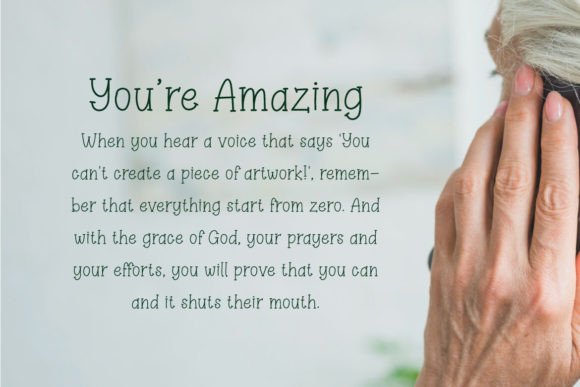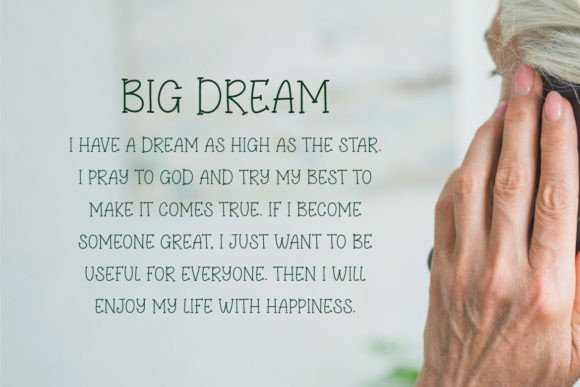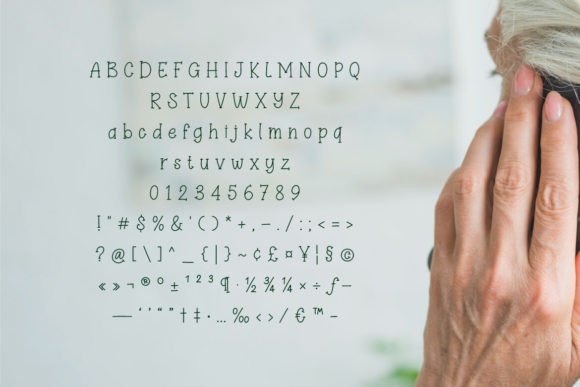
Introduction to Restu Embah Font
Have you ever stared at a blank canvas, trying to bring a creative idea to life, only to be limited by the perfect font? That’s a moment we’ve all experienced at some point in our design journey. But what if I told you that there’s a solution to this problem? Enter Restu Embah Font, a modern thin handwritten font that’s about to revolutionize your creative projects.
As a valuable resource for designers, Restu Embah Font offers a high-quality solution for any design need. Whether you’re working on a logo, a birthday invitation, or a book title, this font is sure to elevate your design to the next level. Plus, with its transparent background, you can easily combine it with any design element to create a cohesive look. And the best part? It’s available for free download, making it an essential design resource for any creative project.
Key Features of Restu Embah Font
- High-quality design with a unique, hand-drawn aesthetic, ideal for creative projects and design resources.
- Includes a large character set, including letters, numbers, and special characters, making it suitable for a variety of design projects.
- Perfect for use in logos, branding materials, and other design elements where a unique and creative touch is desired.
Honest Review: Restu Embah Font
I recently came across the Restu Embah Font, and I’m excited to share my thoughts on this design resource. As a designer, I appreciate high quality fonts that can elevate my creative projects.
Firstly, I love the unique aesthetic of this font. It features a transparent background, which makes it a great choice for designers who want to add a touch of sophistication to their work. The Restu Embah Font is also free to download, making it an excellent option for designers on a budget.
Here are some things that work well with the Restu Embah Font:
- ✨ Unique and elegant design
- ✨ Suitable for a wide range of creative projects
- ⚠️ Limited font weights and styles
- ⚠️ May not be suitable for bold or heavy text
Overall, I’m impressed with the Restu Embah Font. While it may not be perfect, it’s a great addition to any designer’s toolkit. With its high quality design and transparent background, it’s an excellent choice for designers working on creative projects.
The Restu Embah Font is ideal for various creative projects, including logos, business cards, brochures, and presentations. It’s a free download, making it a great resource for designers and non-designers alike.